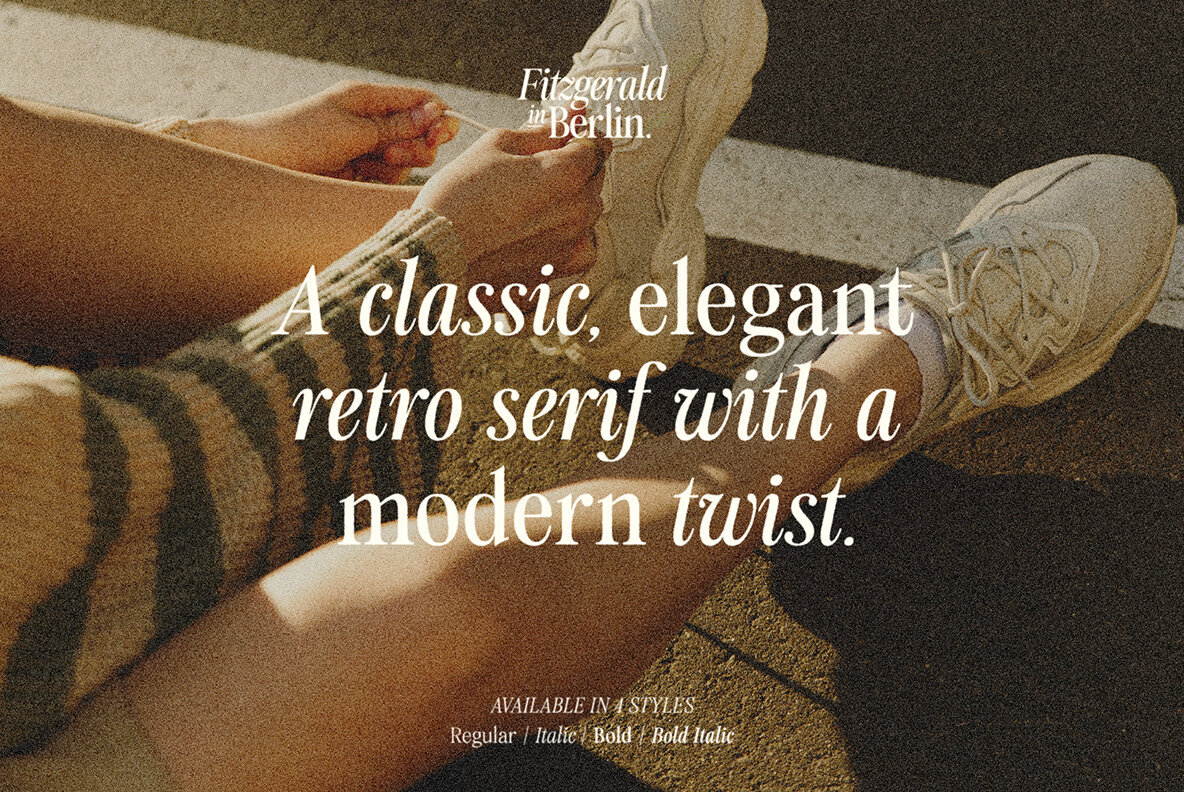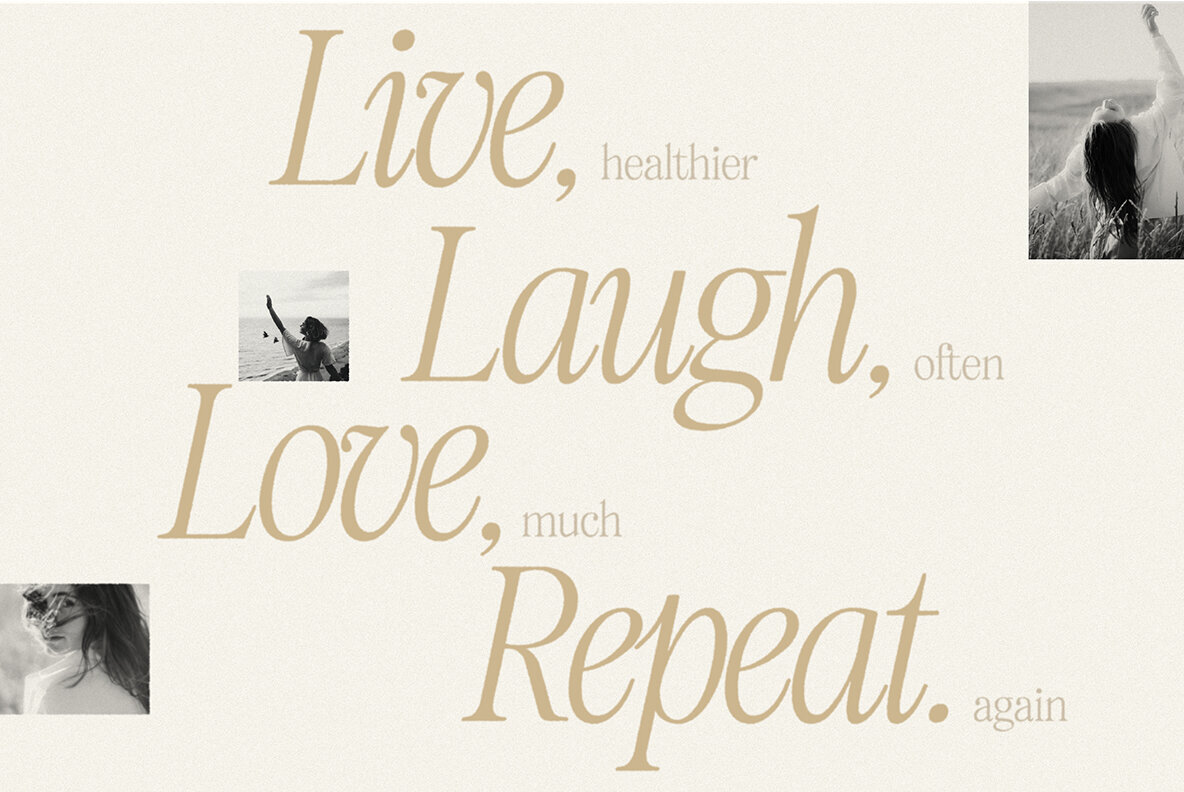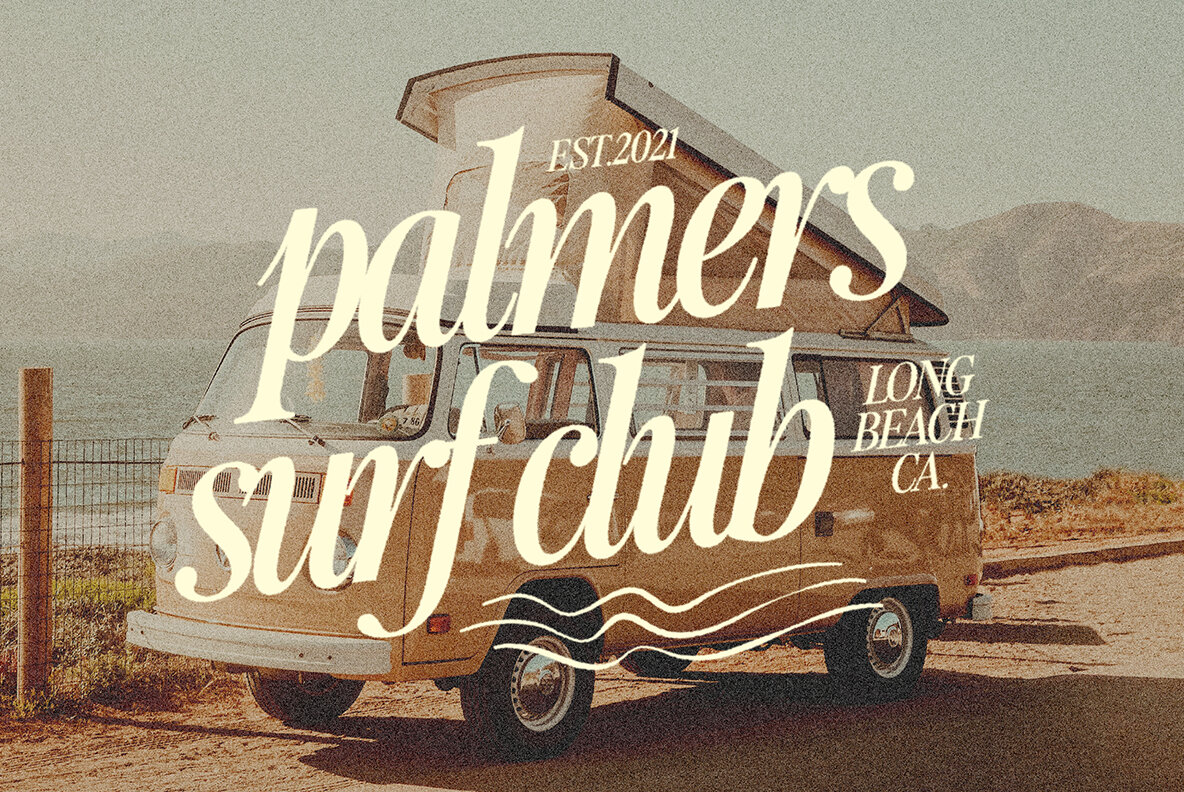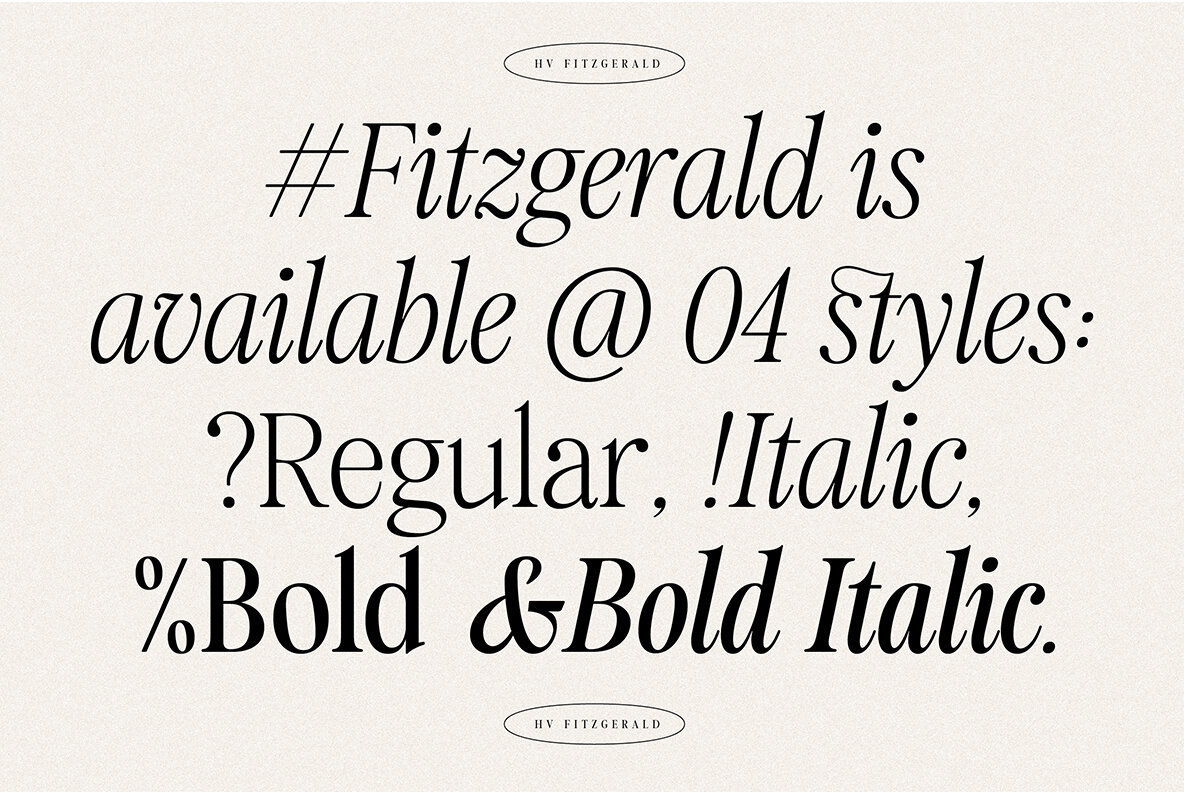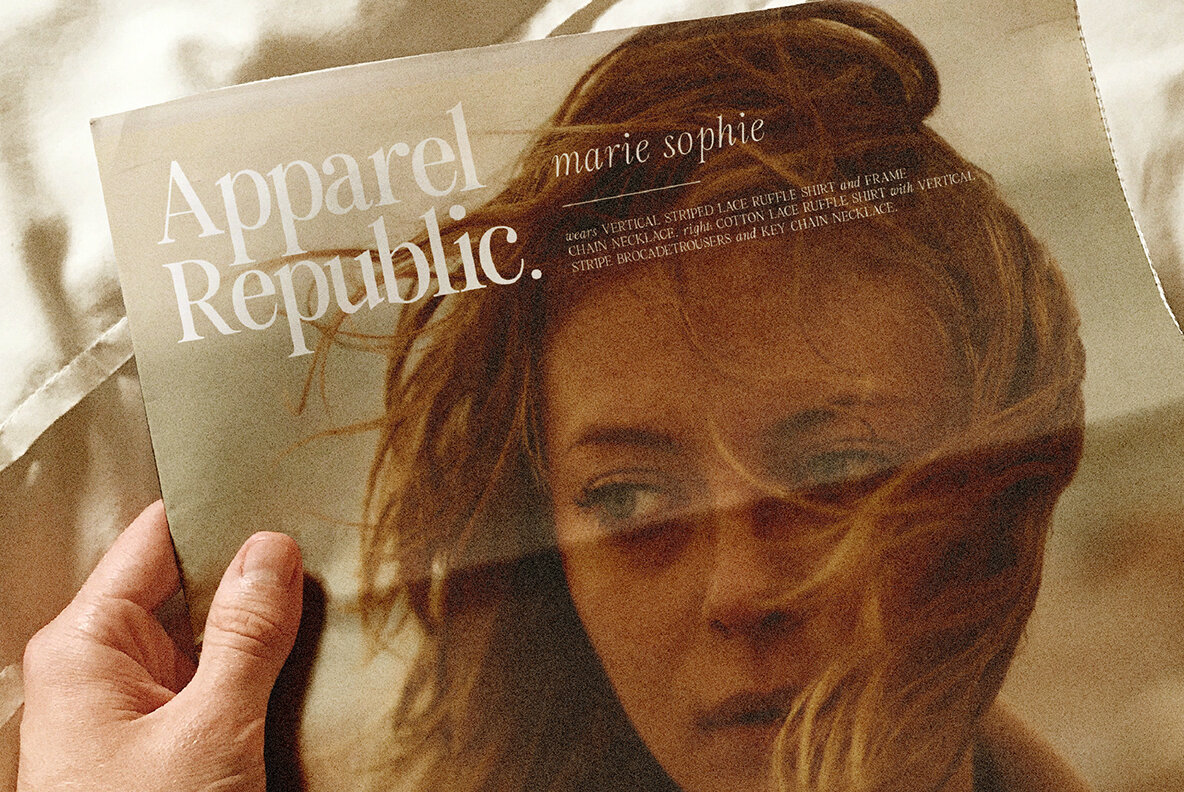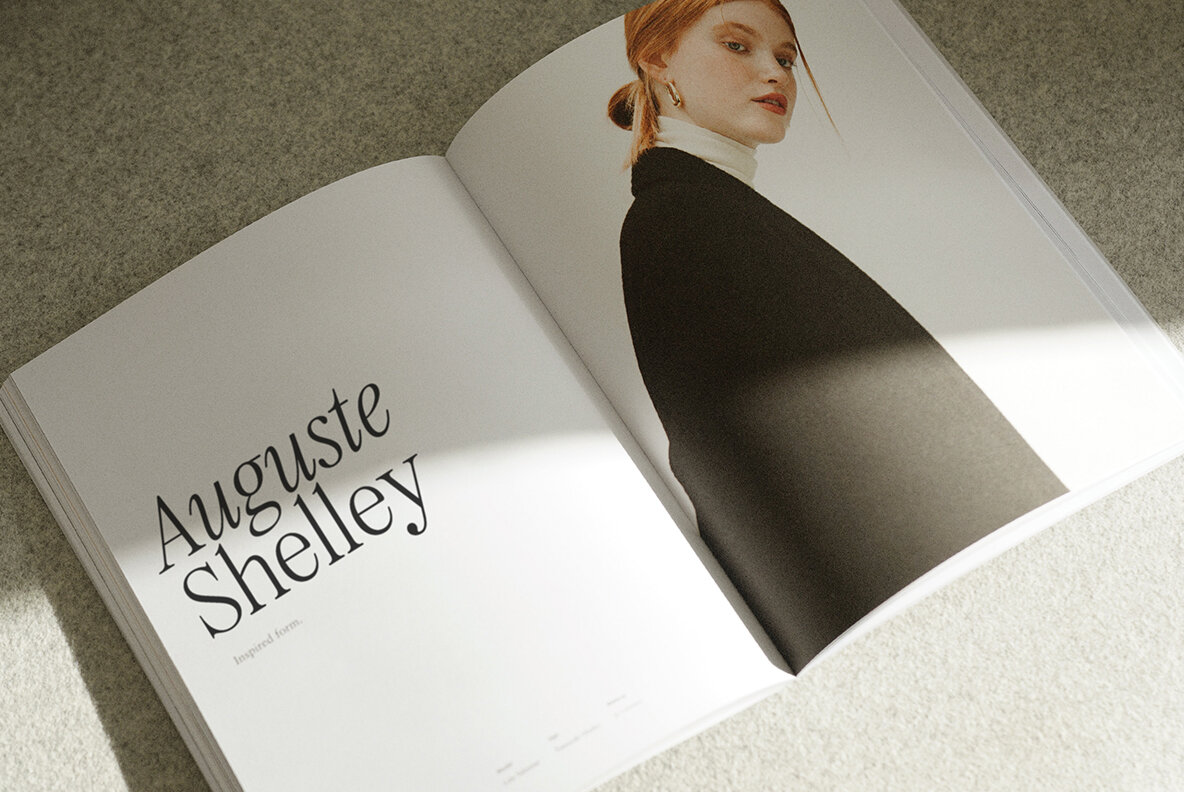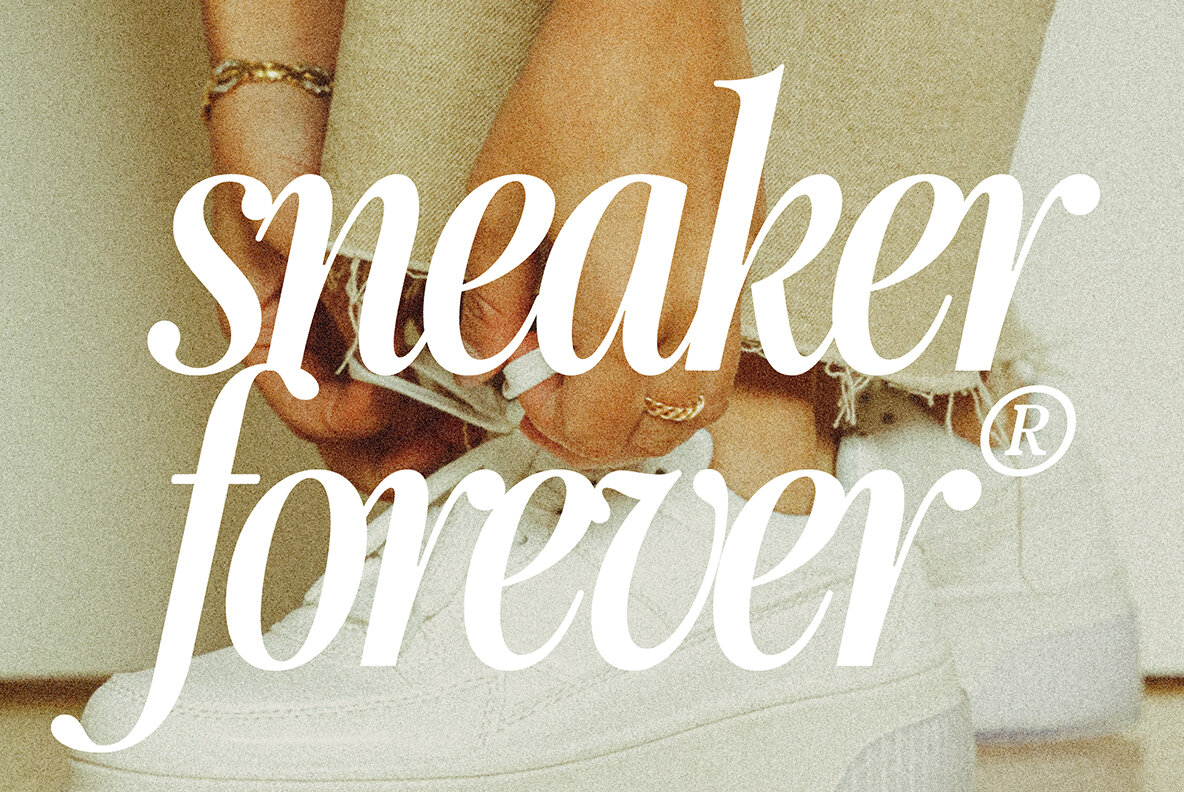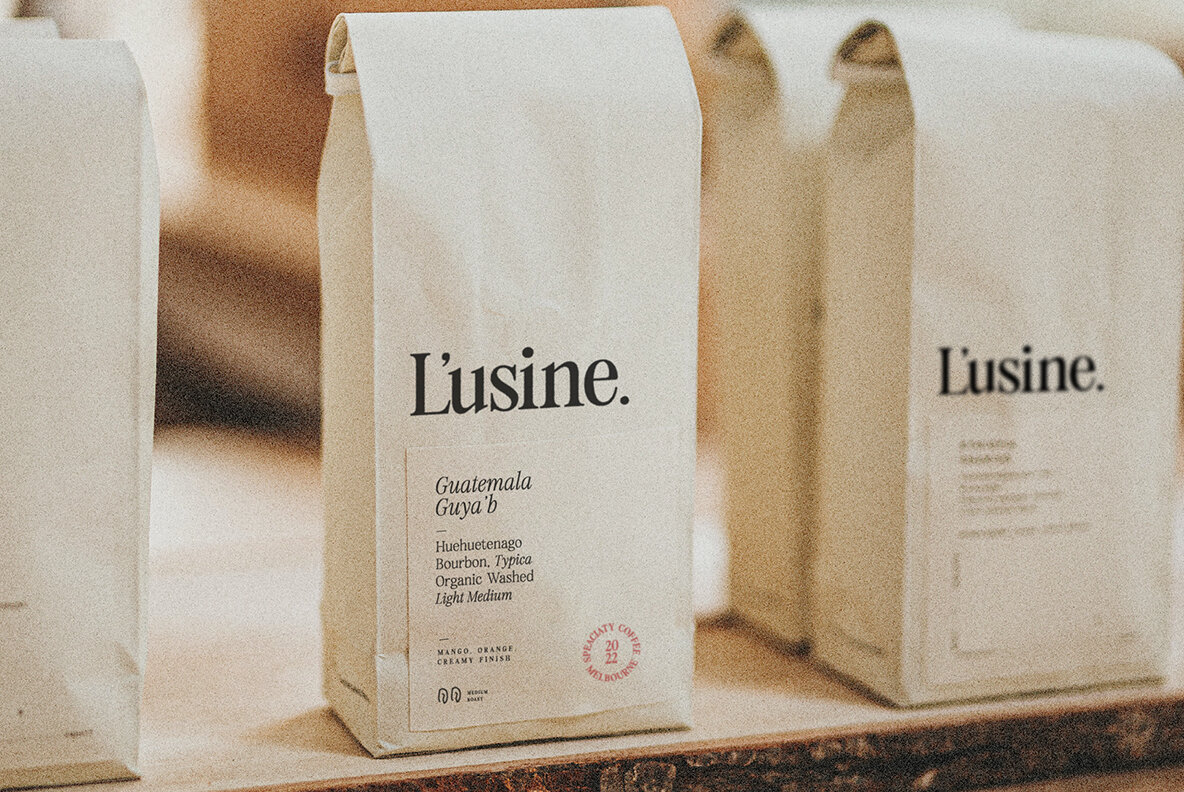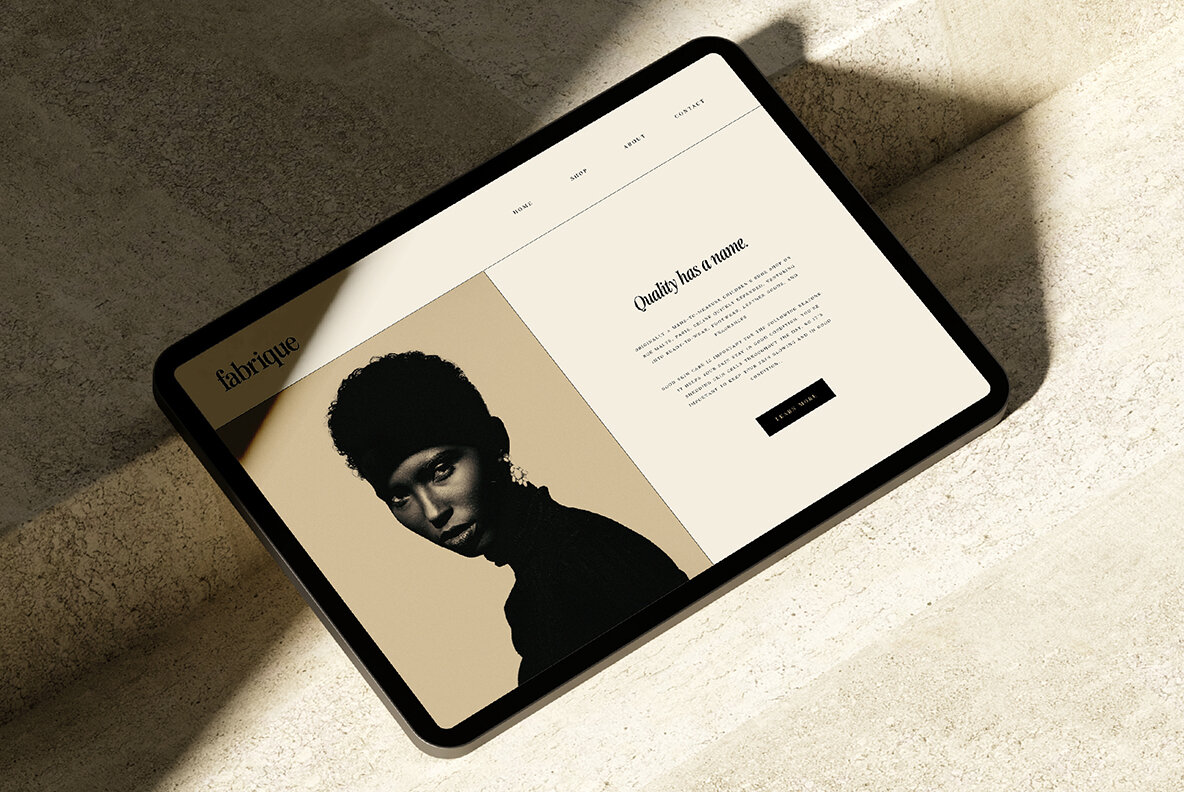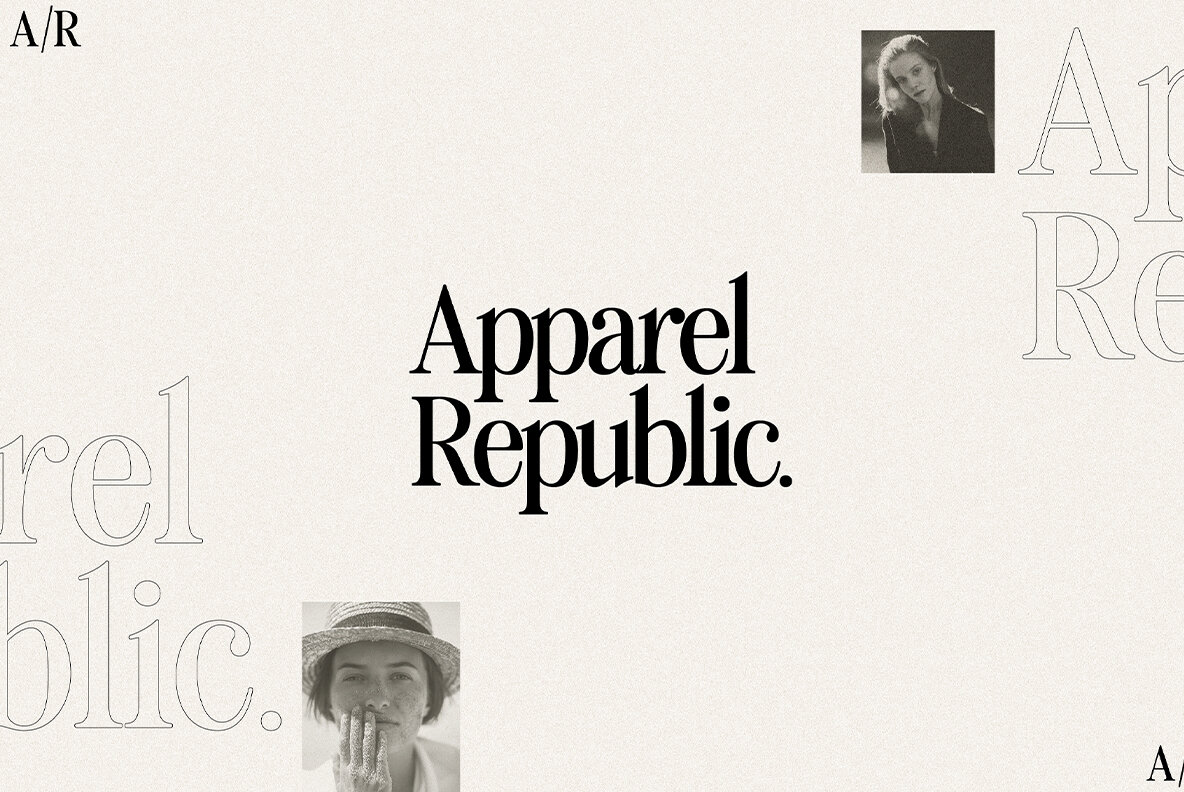
Fitzgerald Font
Fitzgerald - a classic, elegant retro serif with a modern twist. Specially designed for elegant, classic, modern projects. Fitzgerald is perfectly suitable for creating nostalgic, clean designs such as logos, packaging, editorial, and more.